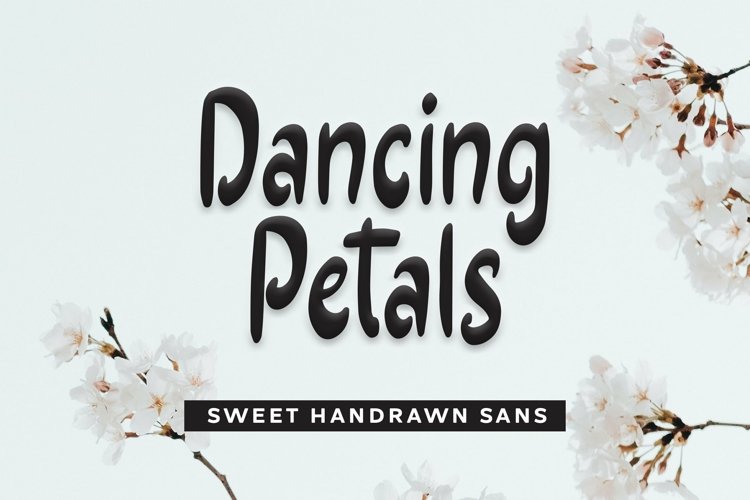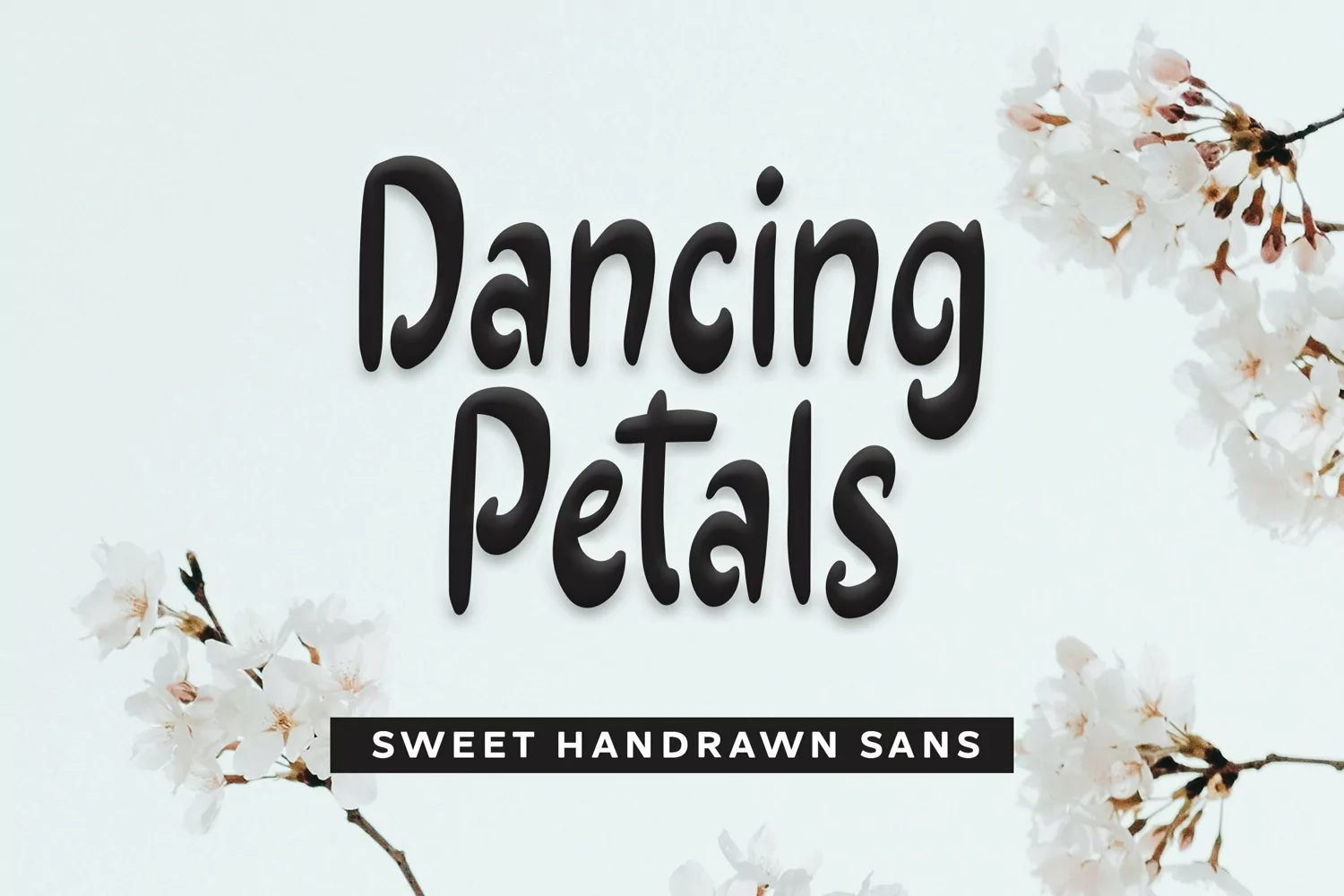
Web Font Dancing Petals - Sweet Handrawn Sans Font that contain lowercase, uppercase, symbol, and also support multi language. There’s a lot ligatures in this font. This Font also comes with ligatures, alternates and many more. this font suitable for fashion, branding, catalog and other design what you want.